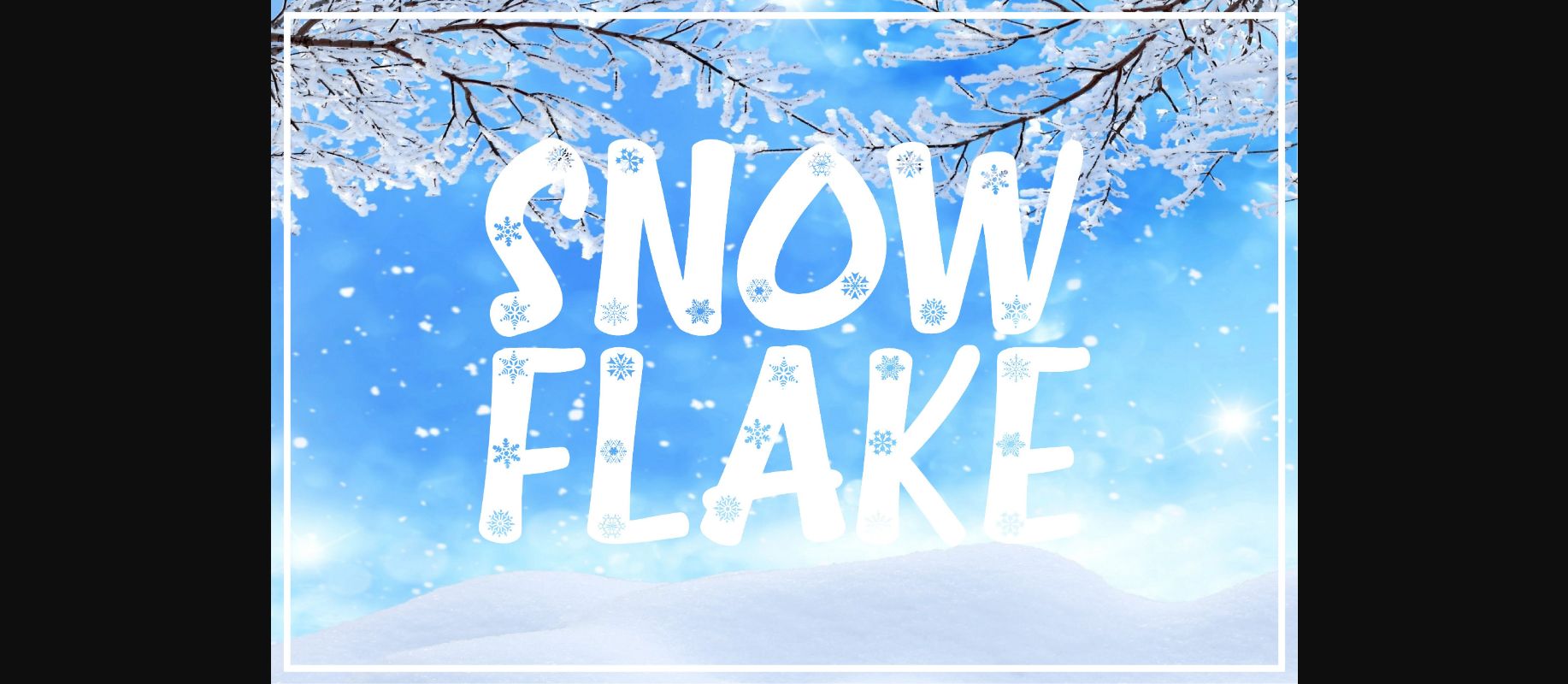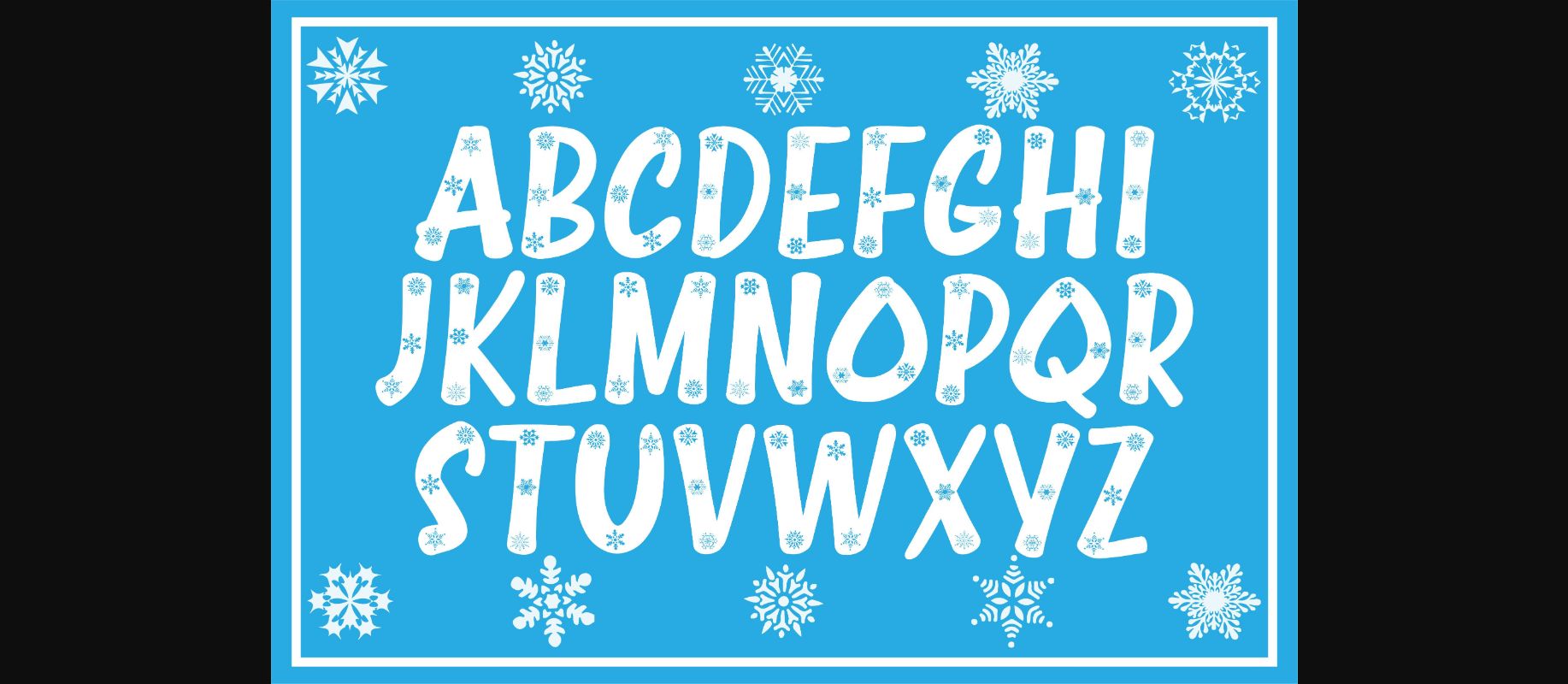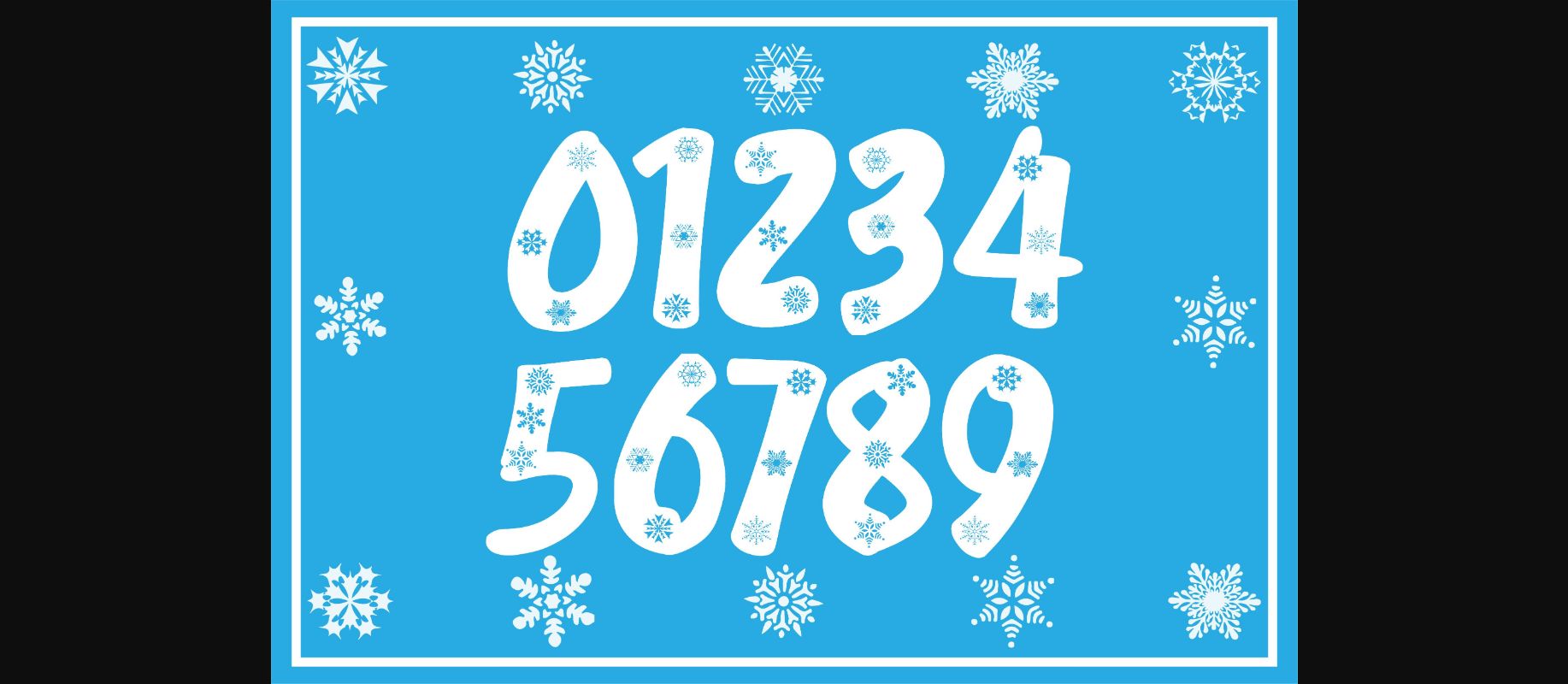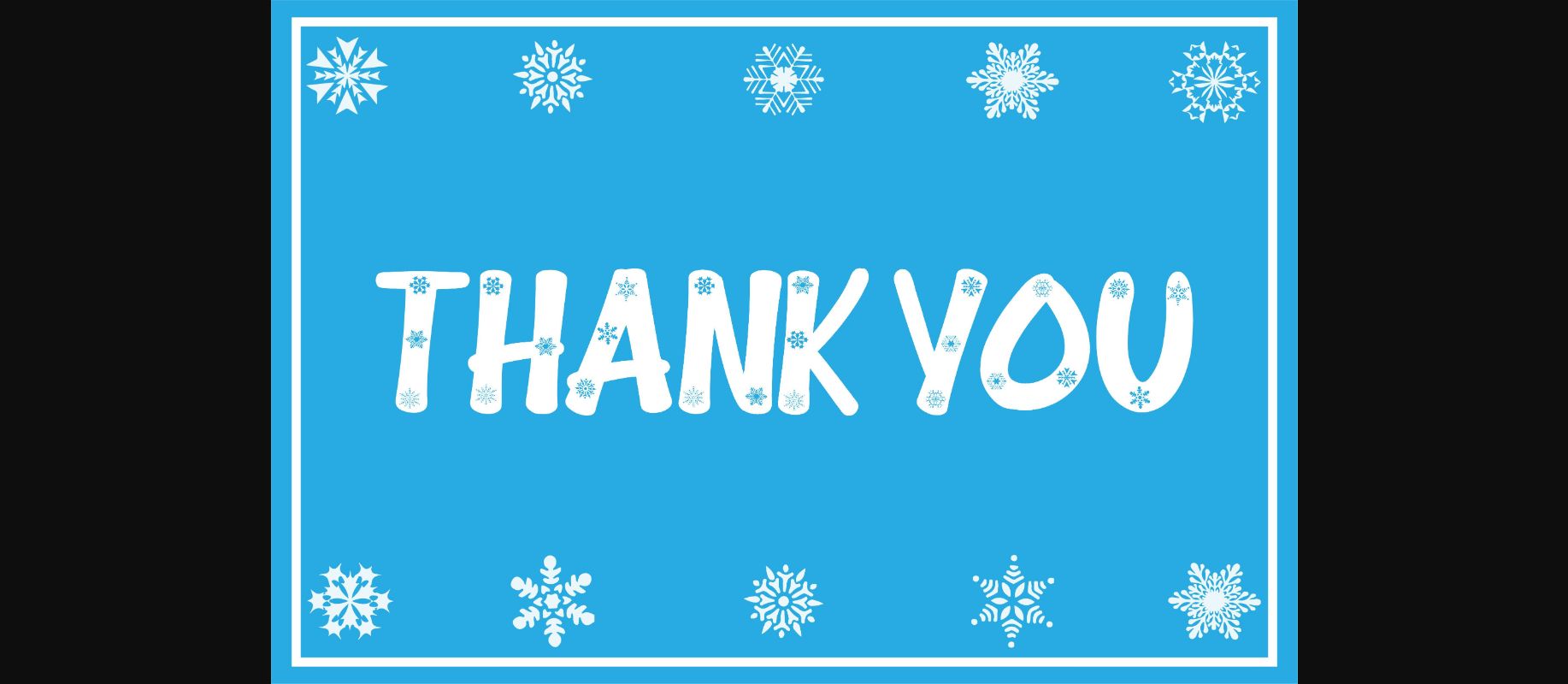
Snowflake Font
About Snowflake Font
Snowflake is a thick-lettered and festive decorative font suitable for all your winter or Christmas-themed projects! Its authentic look will add a personal and realistic feel to your designs.